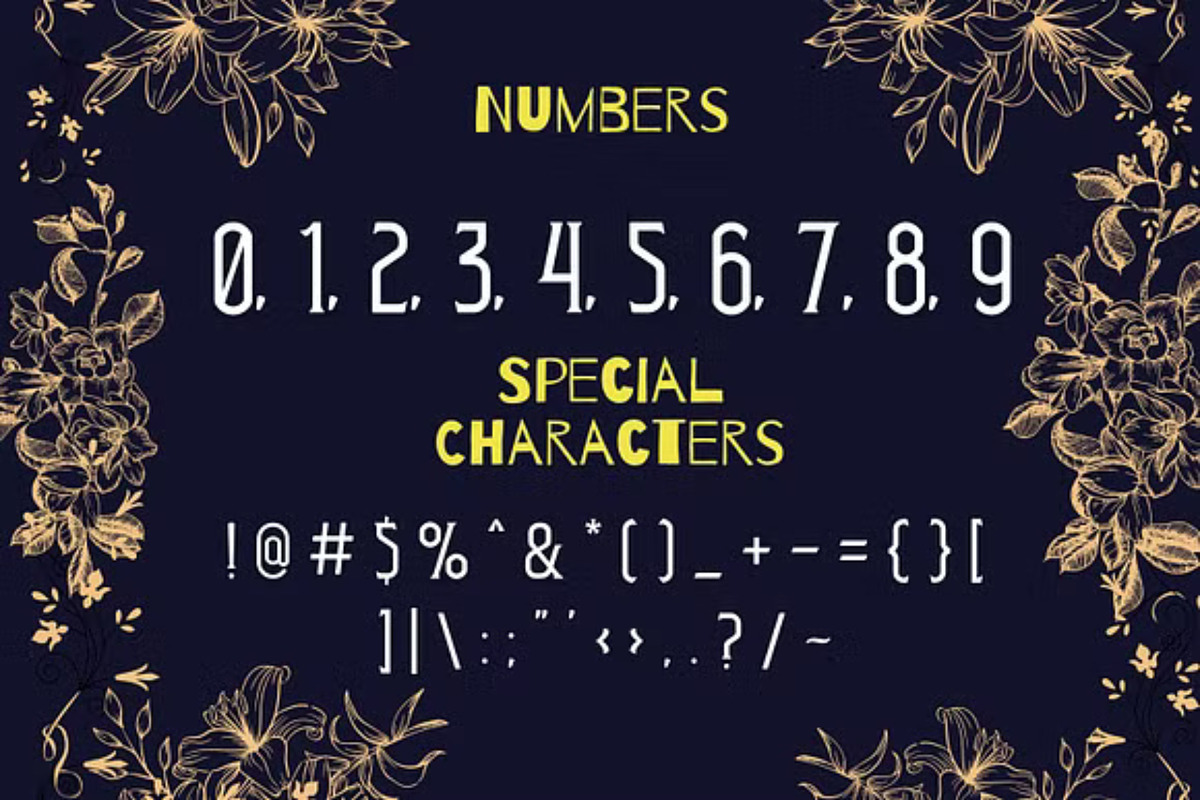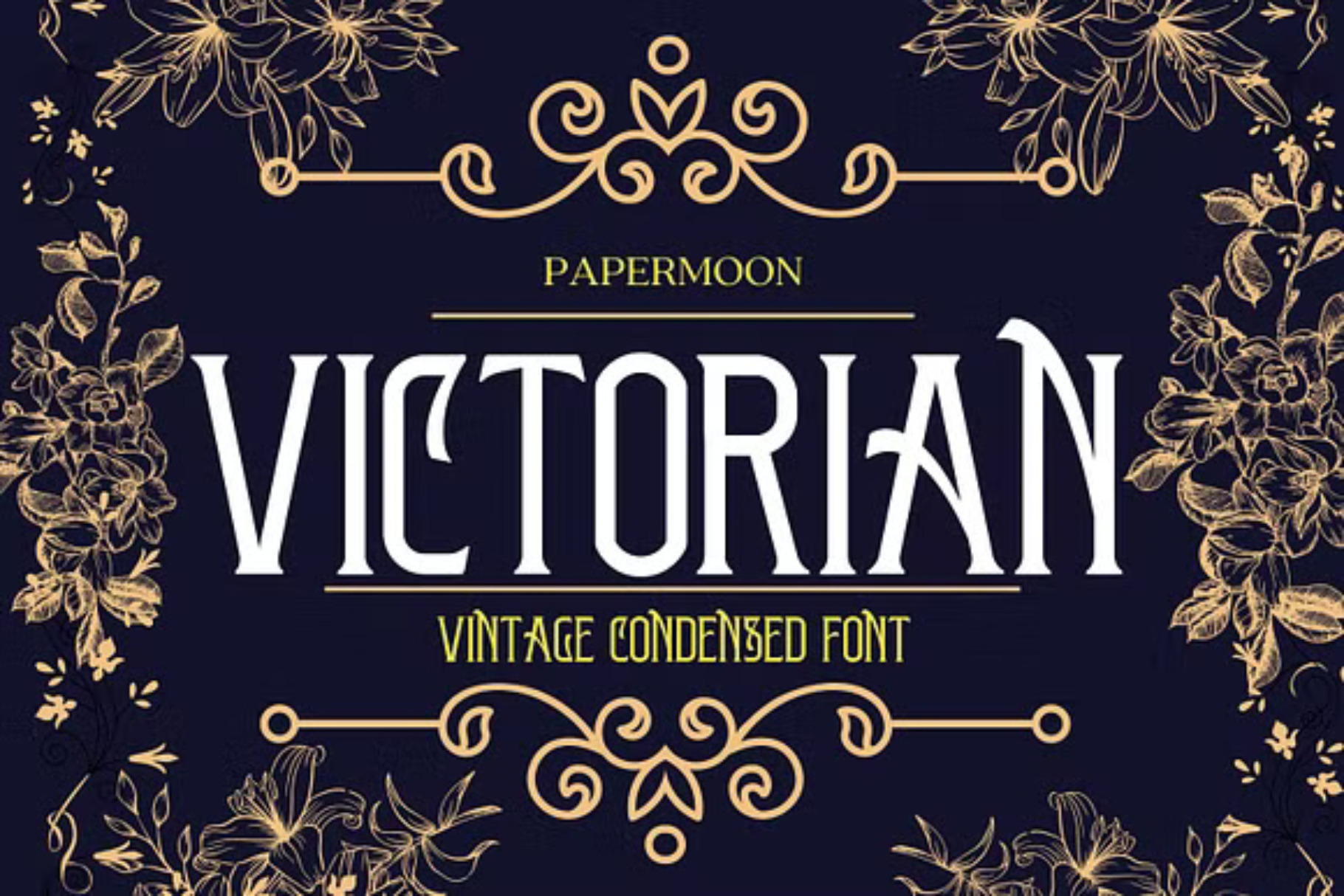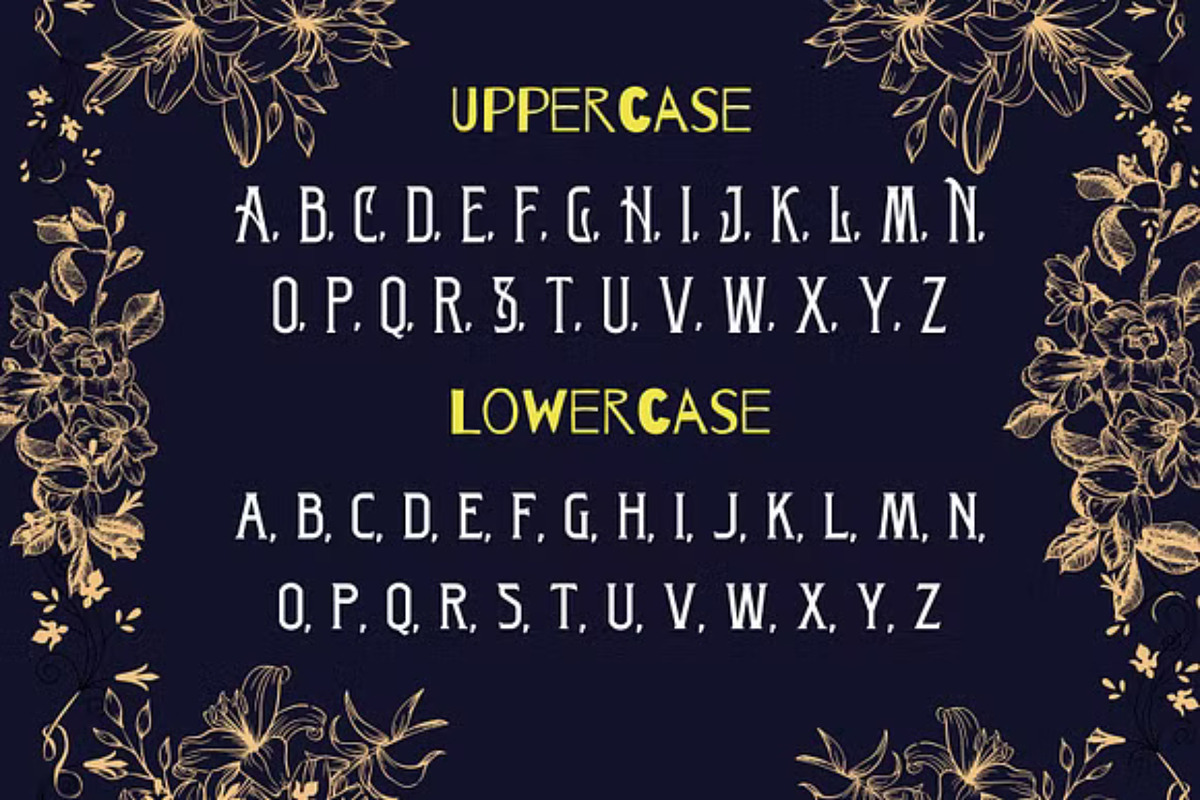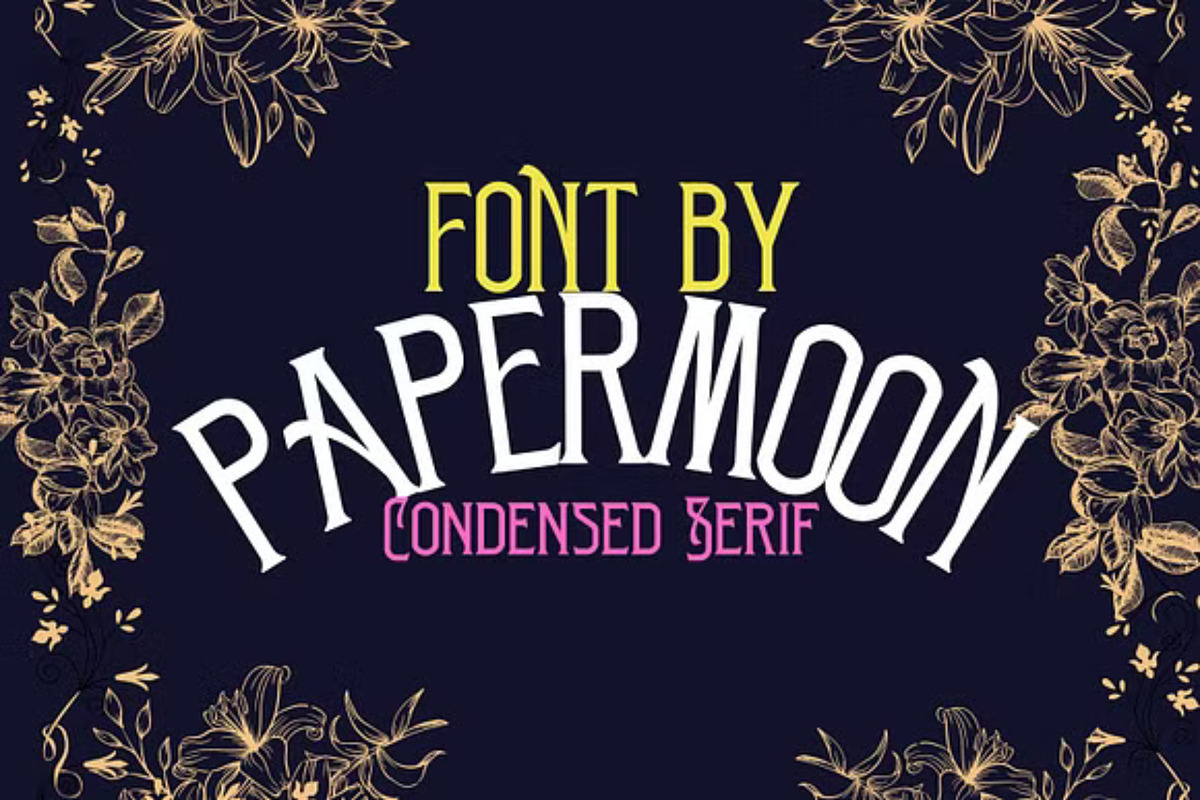
Victorian - Vintage Display Font
Presenting "Victorian Voyageur" - A Typeface Steeped in 19th-Century Elegance!
Step back in time with Victorian Voyageur, a typeface inspired by the opulent luggage labels of the Victorian era. This font captures the sophistication and charm of the 1800s, featuring a balanced blend of thick and thin strokes with a condensed serif style that showcases all-caps elegance. Perfect for those who seek a classic touch in their designs.
But there’s more! Victorian Voyageur offers OpenType features that provide an array of stylistic alternate characters, ensuring your typography compositions stand out with a unique and captivating flair.
⦿ Key Features:
Uppercase & Lowercase: Utilize both uppercase and lowercase letters for a versatile design experience. Numerals & Punctuation: Meticulously crafted numbers and punctuation marks to complement the elegant aesthetic. Alternates: Access a treasure trove of alternate characters to add depth and distinction to your typography. Multilanguage Support: Seamlessly integrate text in over 60 Latin-based languages for global design reach. Victorian Voyageur is perfectly suited for a variety of display needs, including signage that evokes historical grandeur, posters that demand attention, logos that convey timeless sophistication, labels with vintage charm, headlines that captivate, and cover designs that transport readers to a bygone era.
Choose Victorian Voyageur for your next project, and let your typography become a window to the elegance of the 19th century.